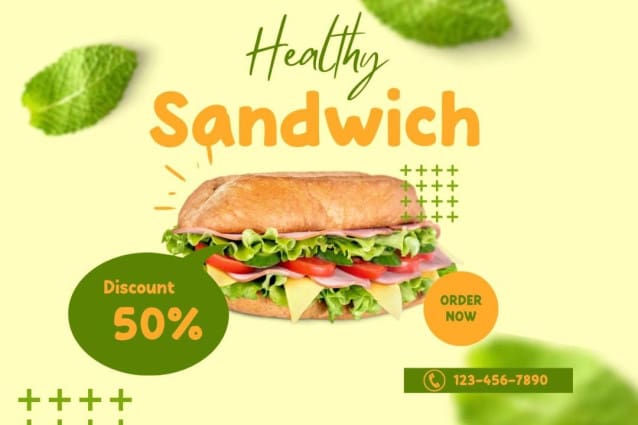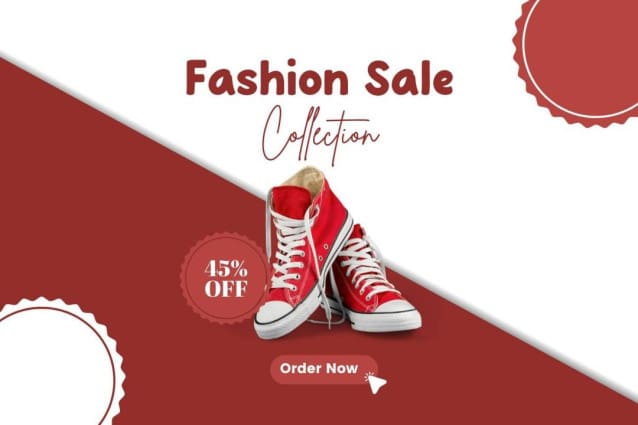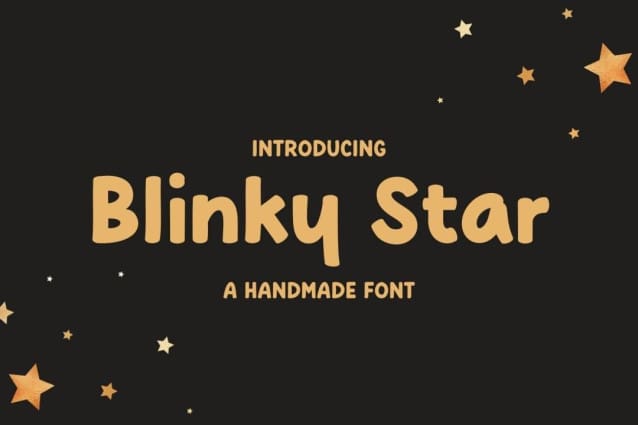
Blinky Star Font
Blinky Star Font is a chunky, comic, and cartoon display font. With its neat and joyful personality, this font will enhance any project you wish to create!